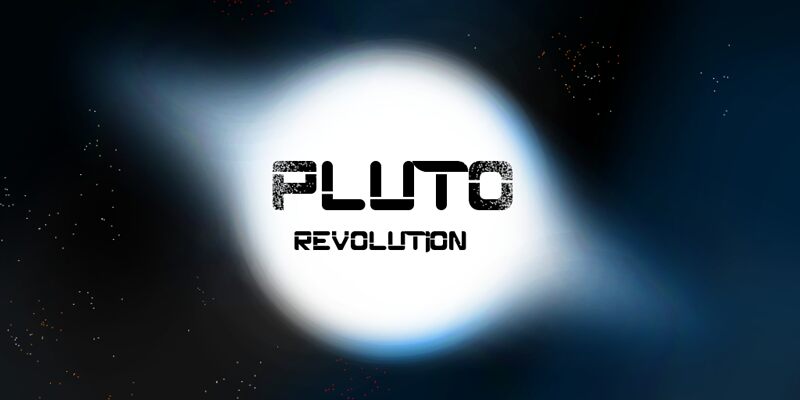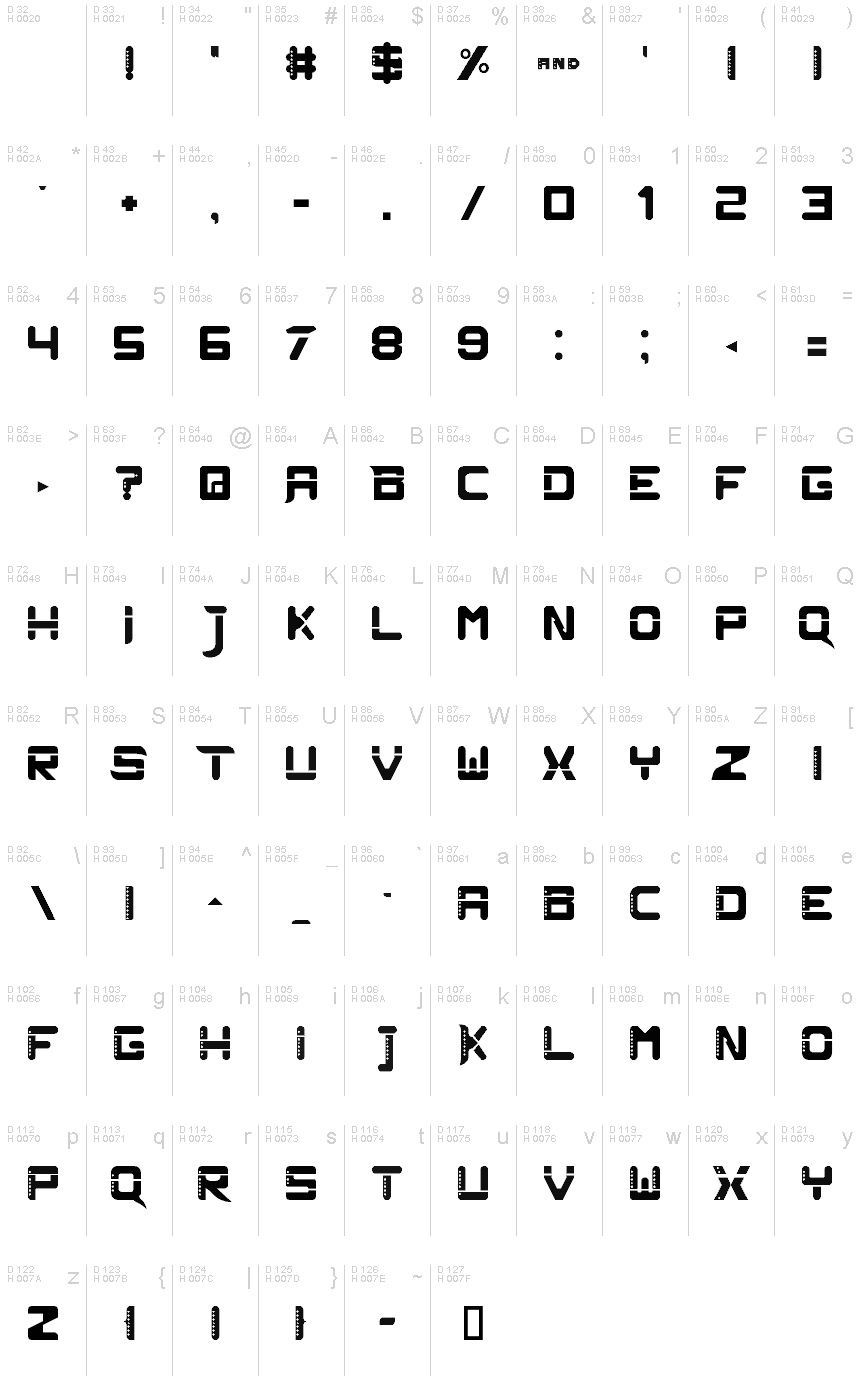
Pluto Revolution
Pluto Revolution is a dynamic and futuristic display font that commands attention. Designed by BryanGu, this expanded techno-style typeface exudes a captivating industrial aesthetic.
The bold, angular letterforms and striking geometric shapes create a powerful, cutting-edge visual presence. Pluto Revolution's expansive width lends an impactful, attention-grabbing quality, making it well-suited for headlines, posters, and branding applications that demand a bold, technological statement.
Its versatility extends to product packaging, UI design, and digital interfaces where a bold, contemporary typographic treatment is desired.
Based on Pluto Zero.